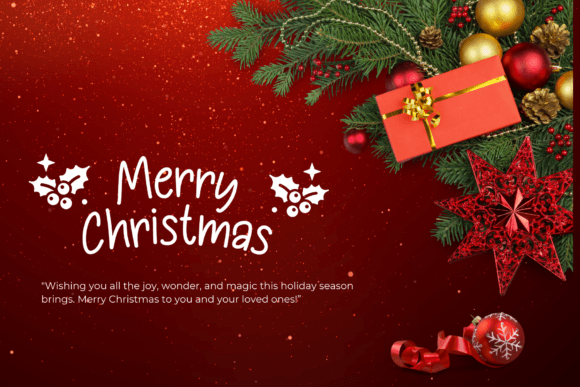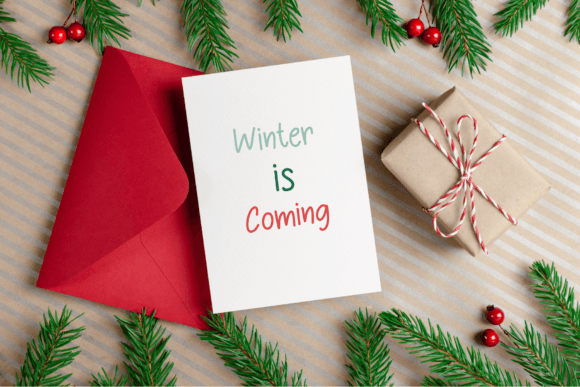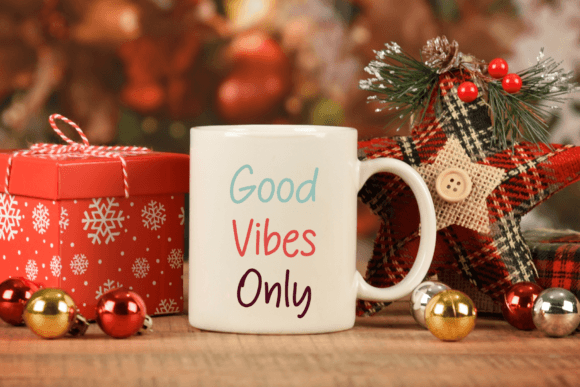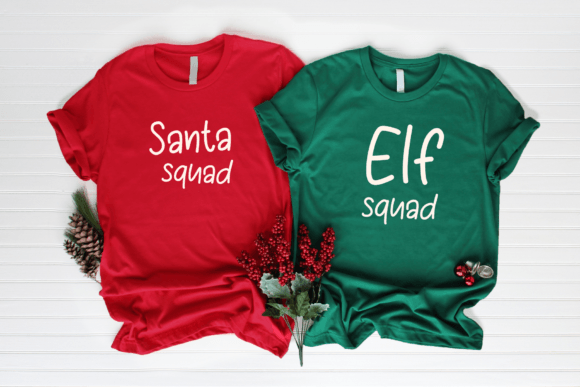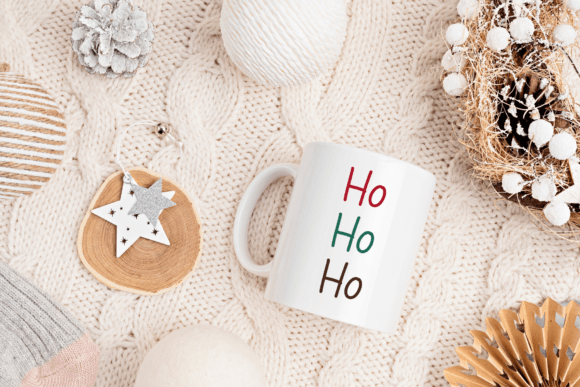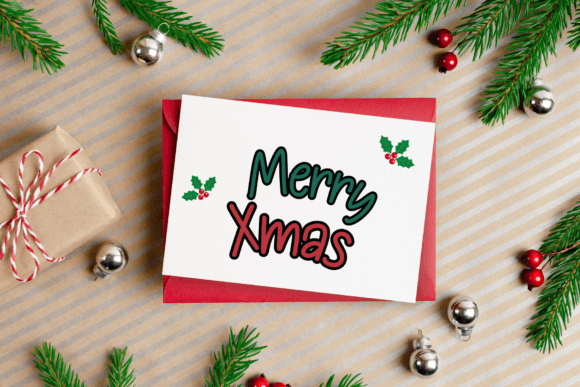
Unleash Your Creativity with Darkness Font: The Ultimate Choice for Playful and Authentic Designs
Are you on the hunt for a font that embodies playfulness and authenticity? Look no further than Darkness Font! This fun handwritten font is the perfect addition to any design project, whether you’re a seasoned designer or a crafty DIY enthusiast. With its unique charm and versatility, Darkness Font is sure to take your creations to the next level.
The Perfect Choice for Designers and Crafters
Darkness Font is more than just a font – it’s a design statement. Its playful and authentic vibe makes it an ideal choice for a wide range of projects, from blog posts and logos to branding, ads, invitations, greeting cards, planners, photo albums, decorations, and more. Whether you’re designing for personal or professional use, Darkness Font is the perfect choice for anyone looking to add a touch of personality to their work.
One of the best things about Darkness Font is its versatility. It can be used in a variety of design contexts, from digital to print. Here are just a few ideas to get you started:
• Blog Posts: Add a personal touch to your blog posts with Darkness Font. Use it for headings, subheadings, or even entire paragraphs to add a playful and authentic vibe to your content.
• Logos and Branding: Create a unique and memorable logo for your business or brand with Darkness Font. Its playful and authentic charm makes it perfect for businesses that want to stand out from the crowd.
• Invitations and Greeting Cards: Make your invitations and greeting cards truly special with Darkness Font. Its handwritten charm adds a personal touch that’s sure to delight recipients.
• Planners and Photo Albums: Add a touch of personality to your planners and photo albums with Darkness Font. Use it for headings, captions, or even entire pages to create a unique and personalized design.
• Decorations: Use Darkness Font to create custom decorations for your home or office. From wall art to party decorations, the possibilities are endless!
Why Choose Darkness Font?
So why choose Darkness Font over other fonts? Here are just a few reasons why designers and crafters love this fun handwritten font:
• Playful and Authentic: Darkness Font embodies playfulness and authenticity, making it perfect for designers and crafters who want to add a personal touch to their work.
• Versatile: Darkness Font can be used in a variety of design contexts, from digital to print.
• Easy to Read: Despite its playful and handwritten charm, Darkness Font is easy to read and understand, making it perfect for body text and other long-form content.
• Unique: Darkness Font is a unique and distinctive font that’s sure to stand out from the crowd.
Font Name Darkness Font
Author Brown Cupple Fonts
In conclusion, Darkness Font is a fun handwritten font that’s perfect for designers and crafters who want to add a touch of playfulness and authenticity to their work. With its versatility, ease of use, and unique charm, Darkness Font is sure to become a favorite in your design arsenal. So why wait? Download Darkness Font today and start creating!